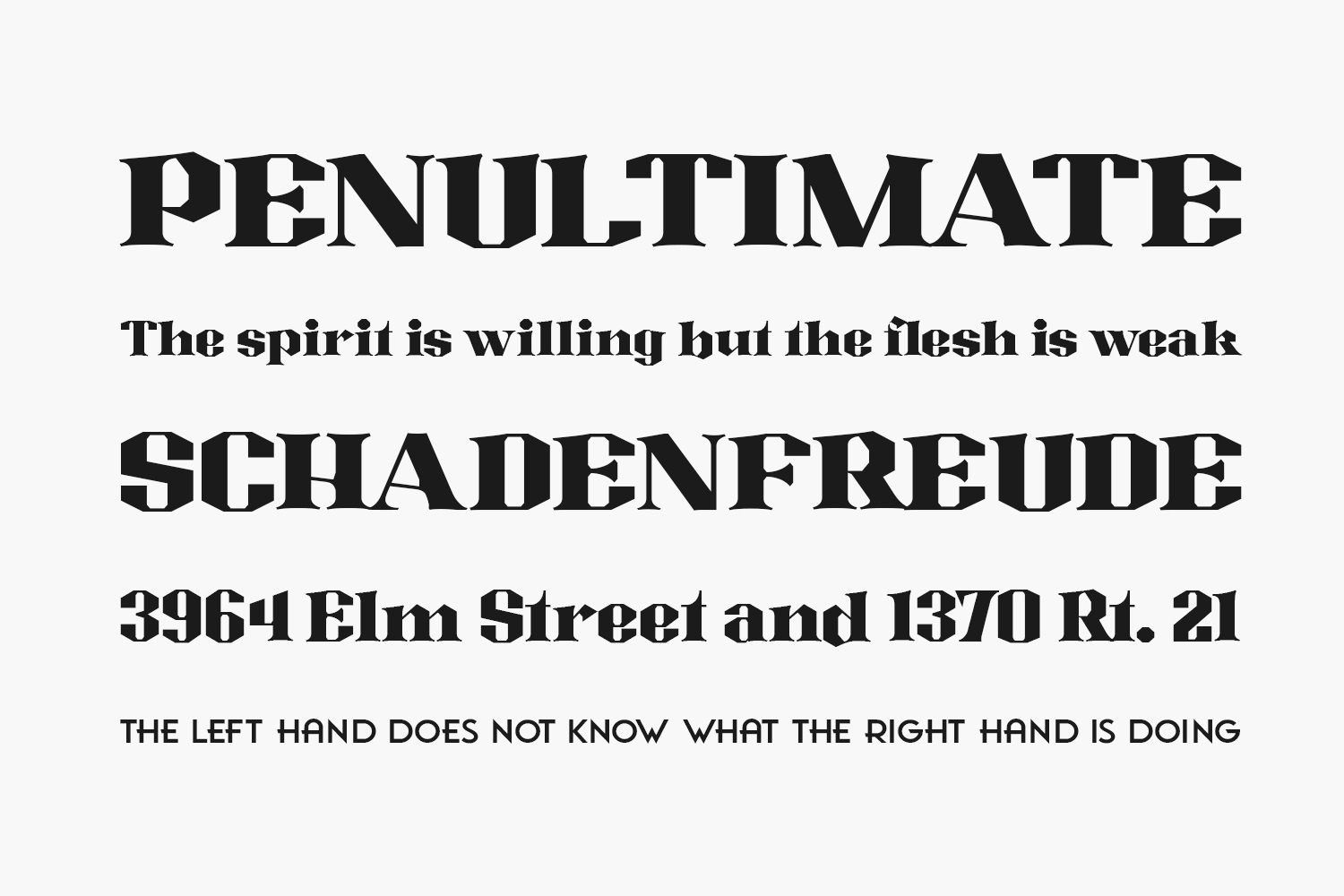
Blood Moon Free Font is a unique and captivating creation tailored to evoke Halloween ambiance. This font exudes the mysterious thrills of a Blood Moon with its elegant serif design, blending sophistication and tension seamlessly. Ideal for a variety of design projects. Blood Moon Free Font is free for personal use only. Please purchase the full version for commercial use.
Designed by Ardyana Types